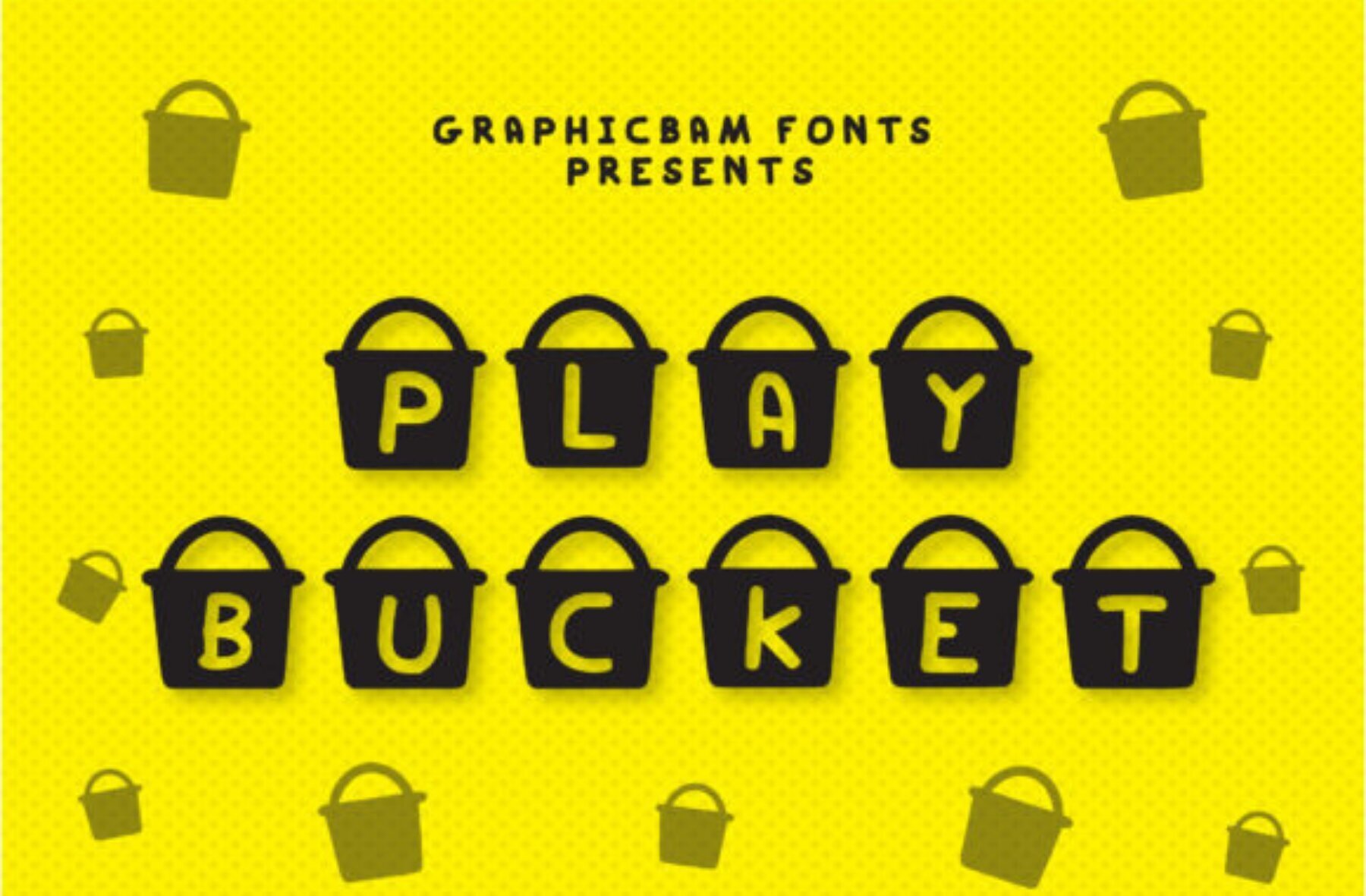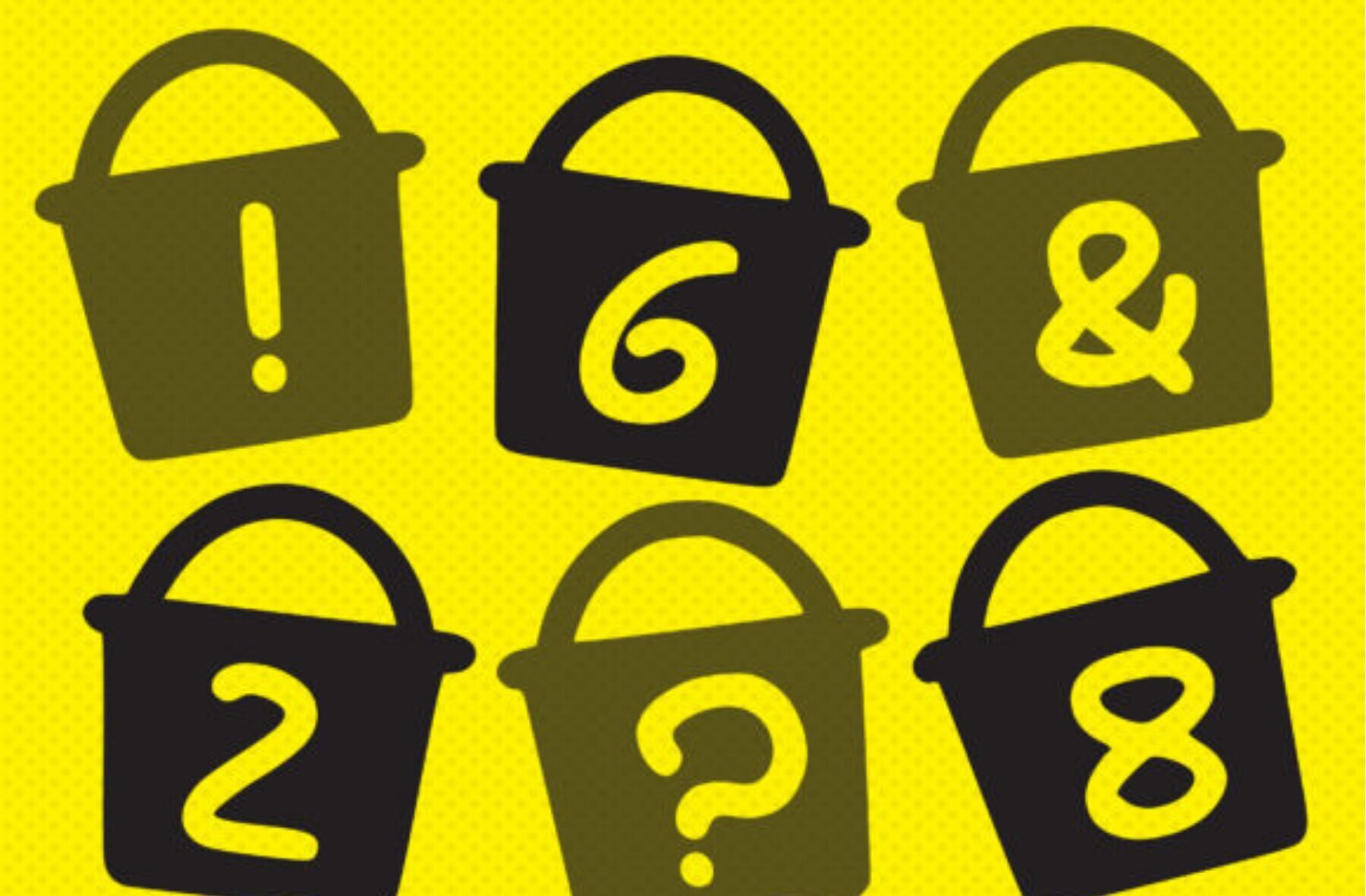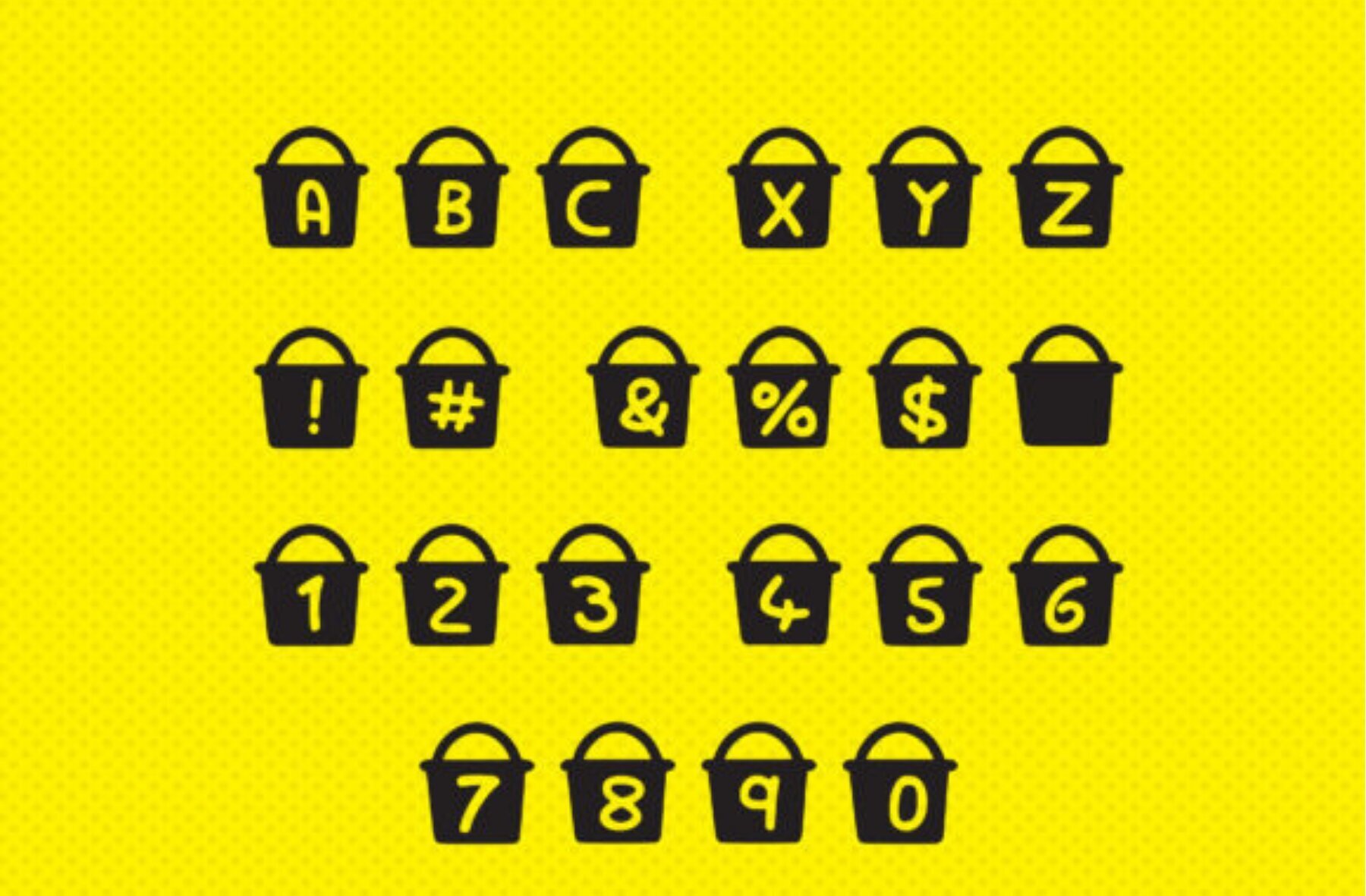
Play Bucket Font
Play Bucket Regular
Infuse your projects with a creative twist using the Play Bucket font. This intriguing decorative typeface showcases a whimsical bucket integrated into each character, providing a playful touch to your designs. Whether you're crafting, designing digitally, or preparing presentations, Play Bucket offers a unique aesthetic that stands out.Play Bucket Font